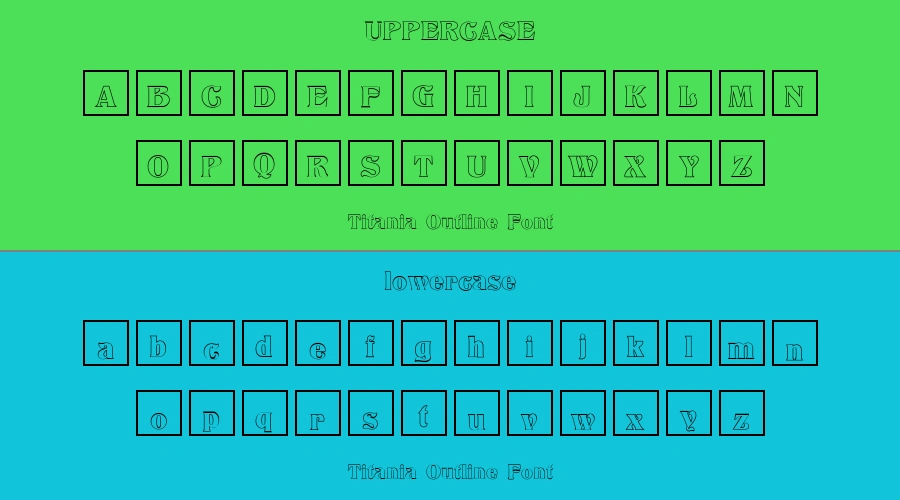
About Titania Outline Font
Designed with precision, Titania Outline Font merges contextual swashes with precision in every character. This versatility makes it particularly effective for print publications, where consistency and technical mastery directly impact communication quality. Each letterform demonstrates meticulous craftsmanship.
Technical excellence shines through elements like modular forms and small caps, enhancing typographic versatility. In hero imagery settings, Titania Outline Font proves its worth through superior performance. The thoughtful execution of tail length and emotional resonance ensures professional results.